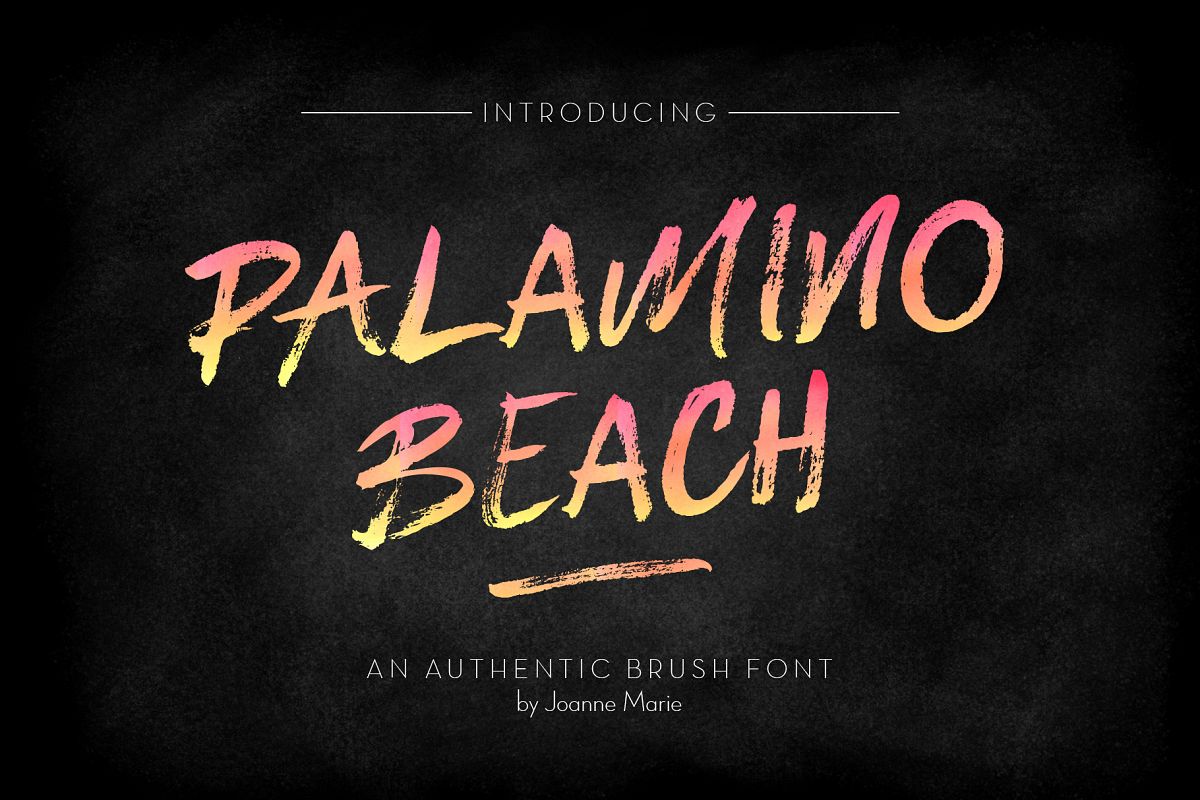
Palamino Beach Brush Font
Palamino Beach was born by ink on paper and lots of fun!
It’s an authentic paint brush font that’s so versatile that you can use it for just about any design project! This fashionable all caps font is perfect for merchandise designs and headlines, titles, etc. It’s dry brush strokes gives it that special ‘umpf’ that is required to catch the eye of your audience.
It’s also supports multiple languages for those of you who need it.